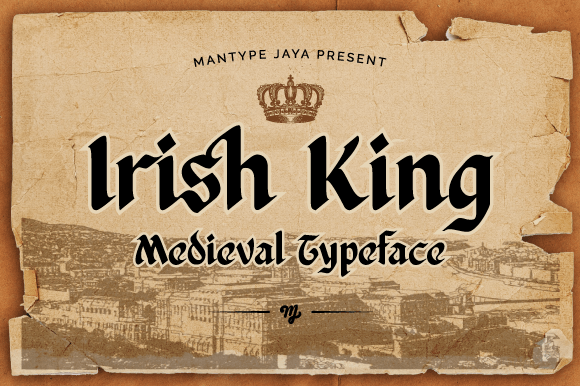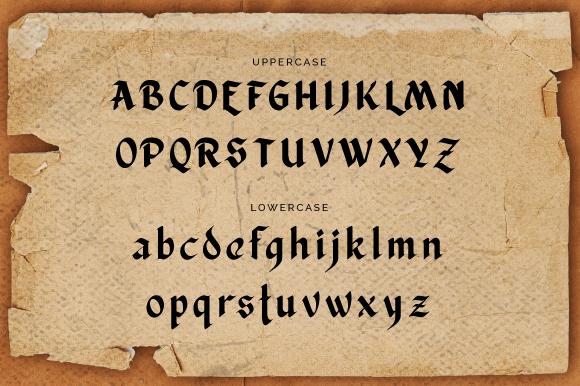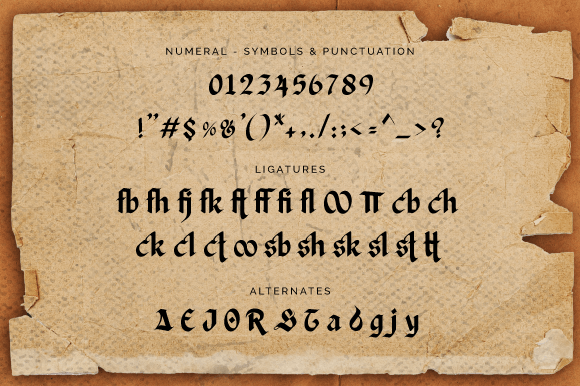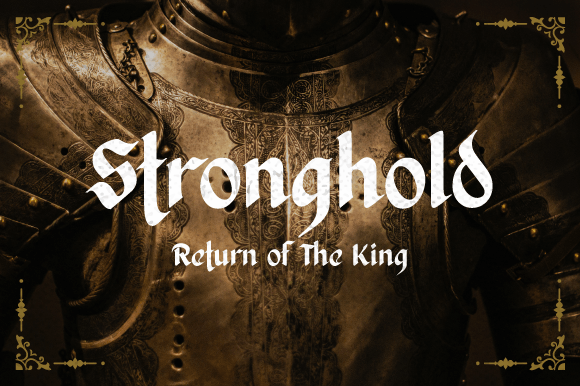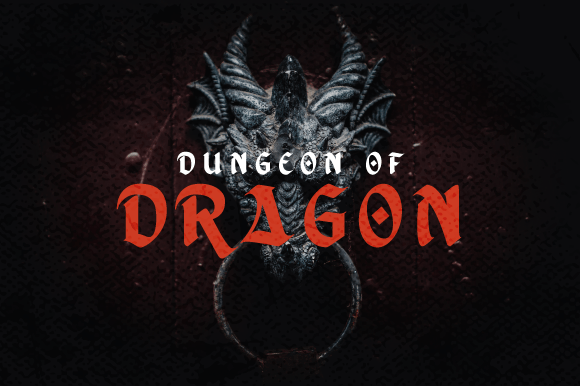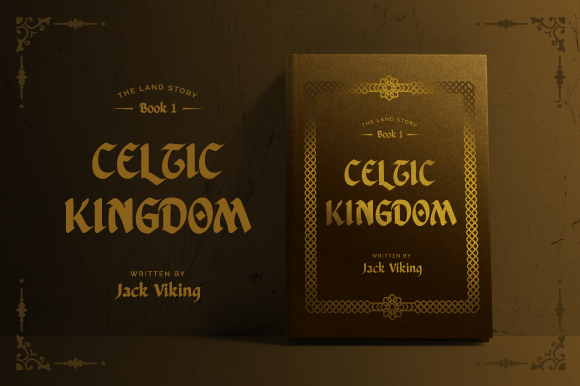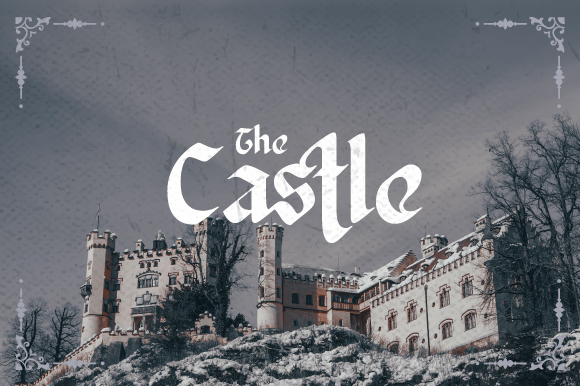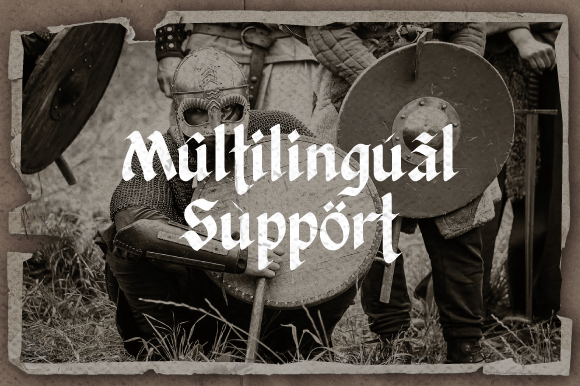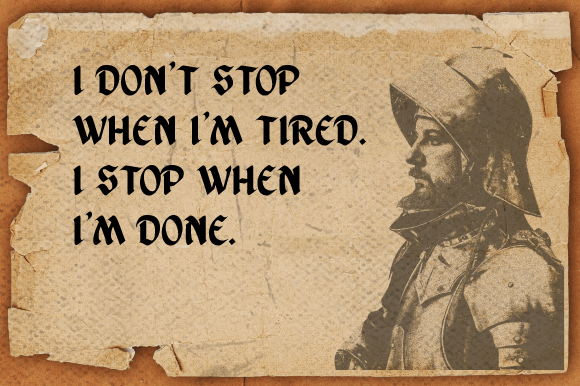
Irish King Font
Irish King is a blackletter display typeface that brings the spirit of the Middle Ages into the modern world. Its design is based on a classic blackletter shape with a Celtic feel that will immerse your projects into a magical world. This font is PUA encoded, which means you can access all the glyphs and ligatures with ease!